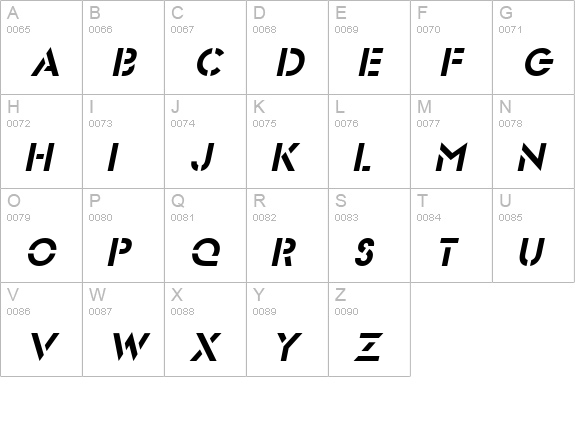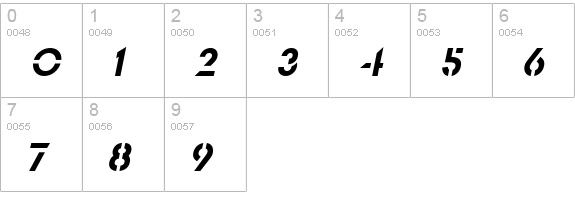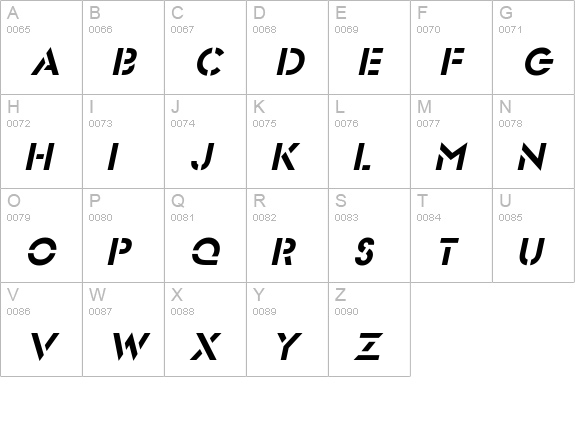
Stencil Sans Italic is a distinctive, italic variant in the Stencil typeface family \xE2\x80\x94 well suited to design and typography projects.
Introducing Stencil Sans Italic font, a modern and stylish typeface that adds a touch of sophistication to any design project. The elegant slanted italic style of this font gives a unique and contemporary look, perfect for creating eye-catching headlines or adding a sleek touch to your branding materials. What sets Stencil Sans Italic font apart is not only its sleek design but also the fact that it is completely free to download. Yes, you read that right - this stunning font is freely available for download at FontsMarket.com. With its clean lines and refined curves, Stencil Sans Italic font is versatile and can be used for a wide range of design projects, from logos and posters to websites and social media graphics. Don't miss out on the opportunity to elevate your designs with this beautiful and free font. Download Stencil Sans Italic font today and see how it can take your projects to the next level!